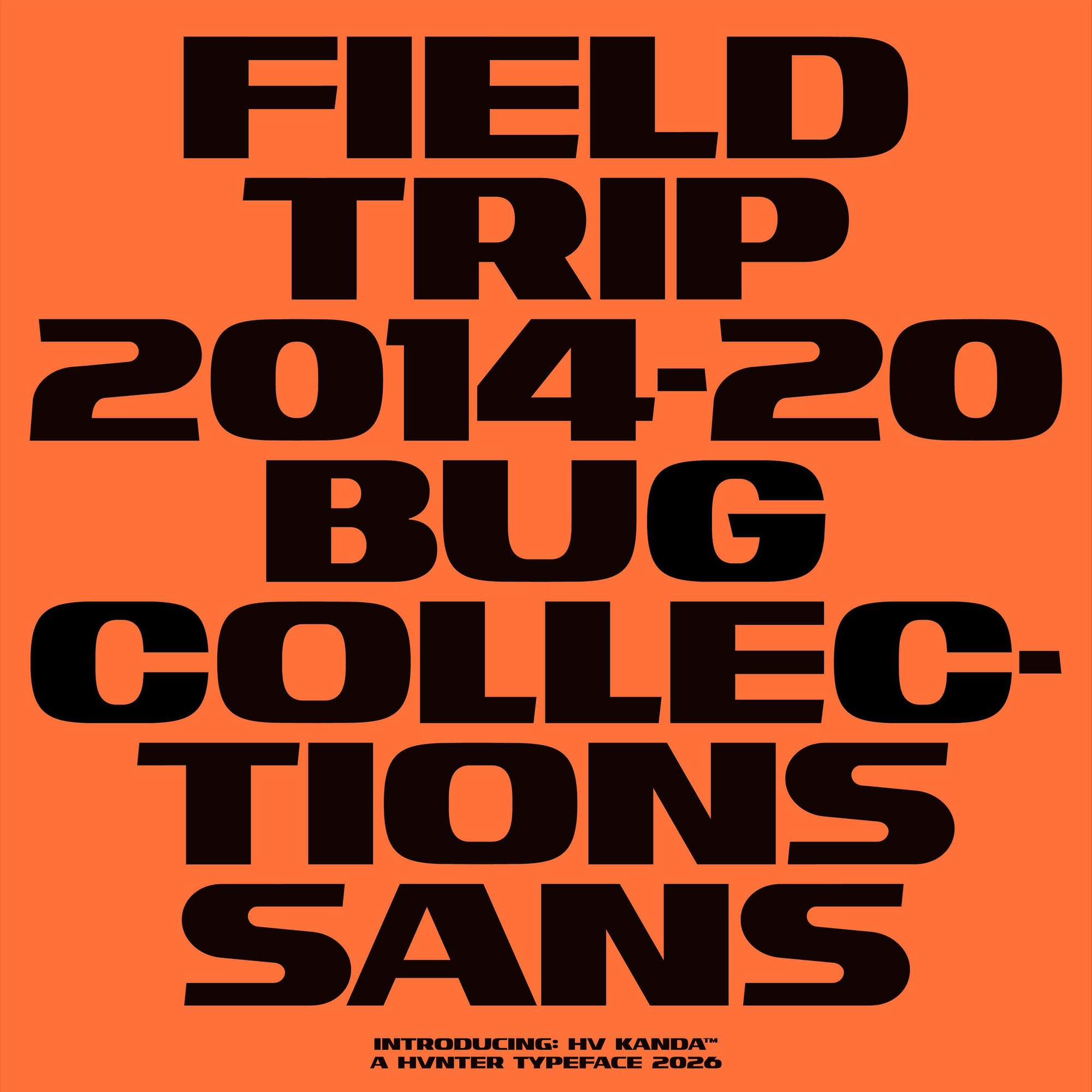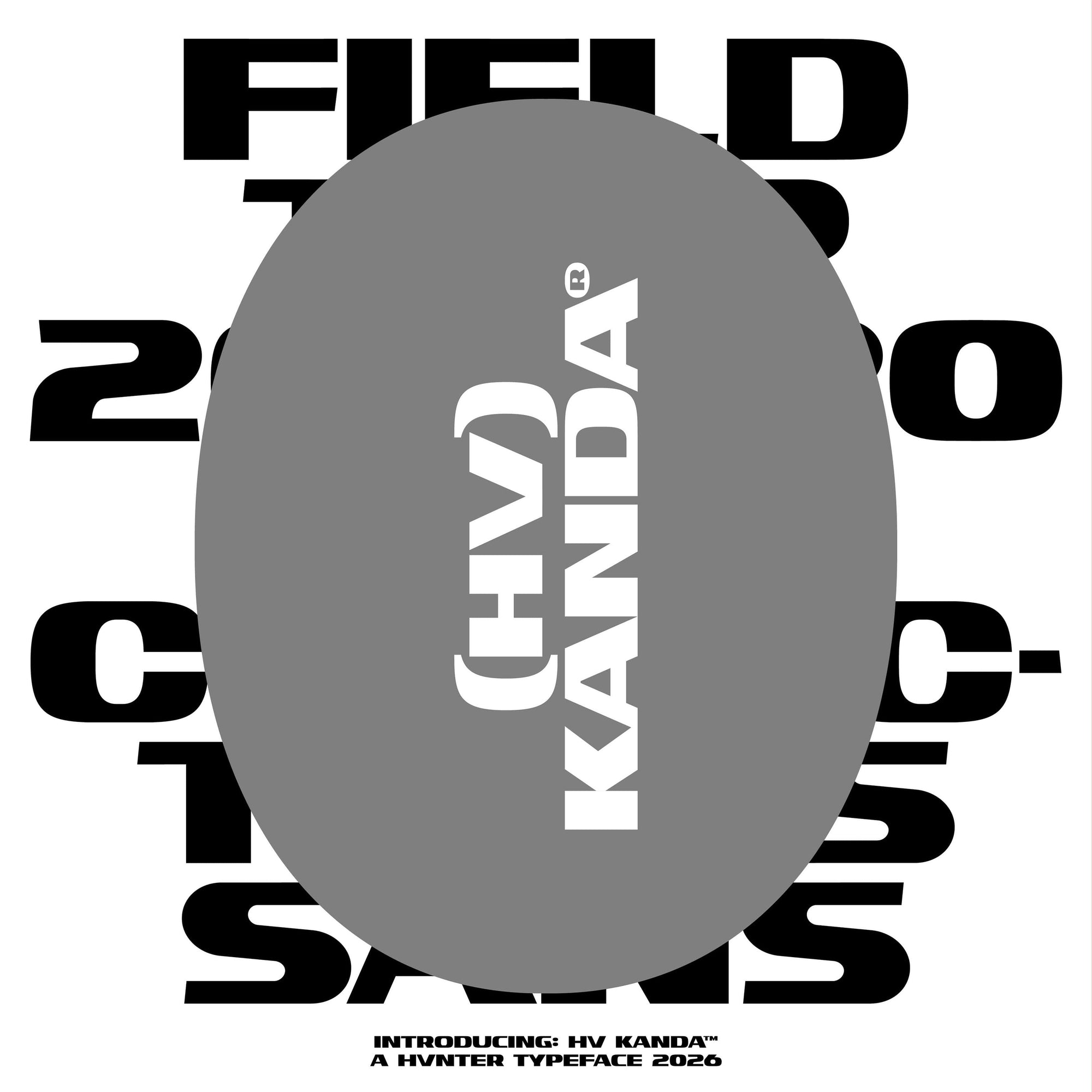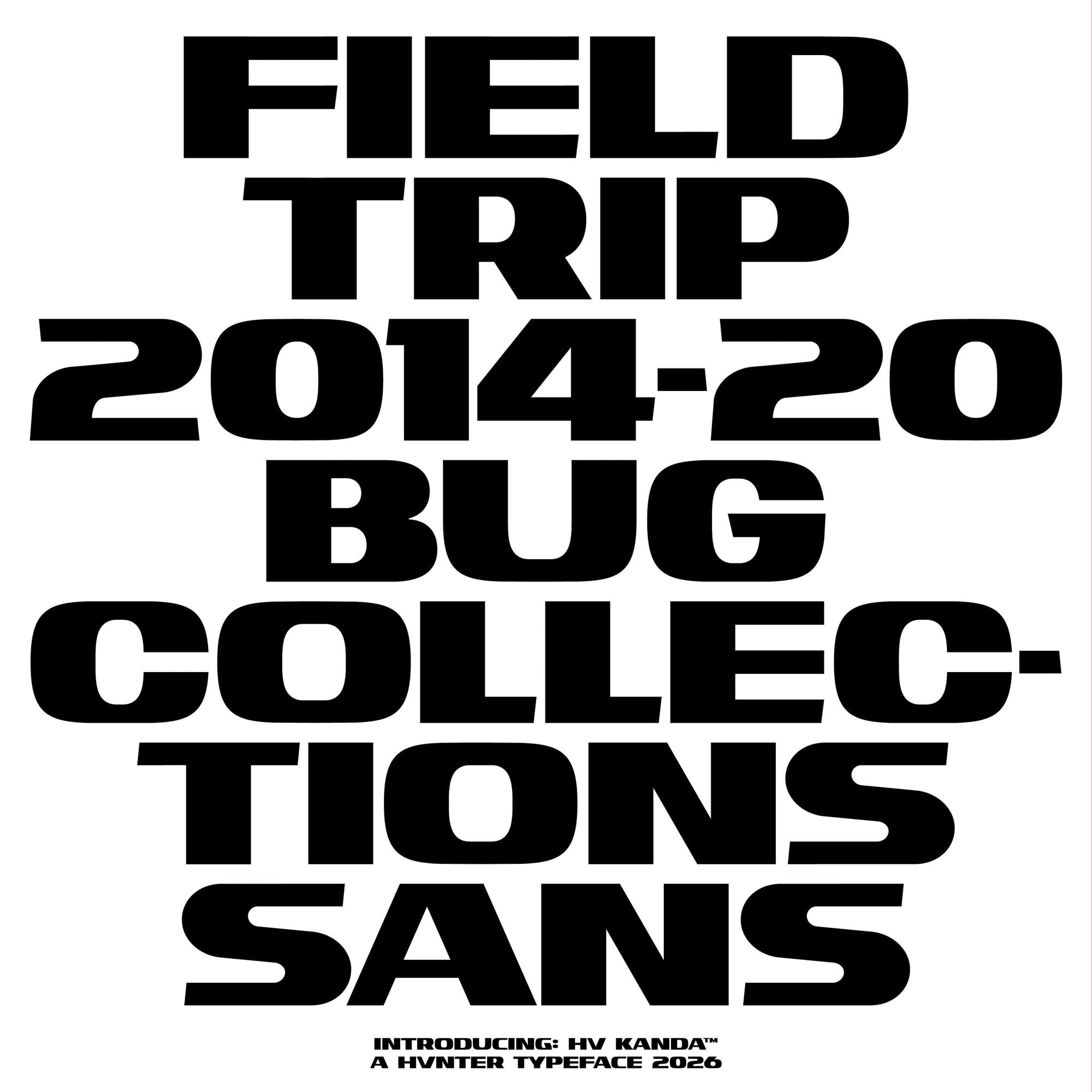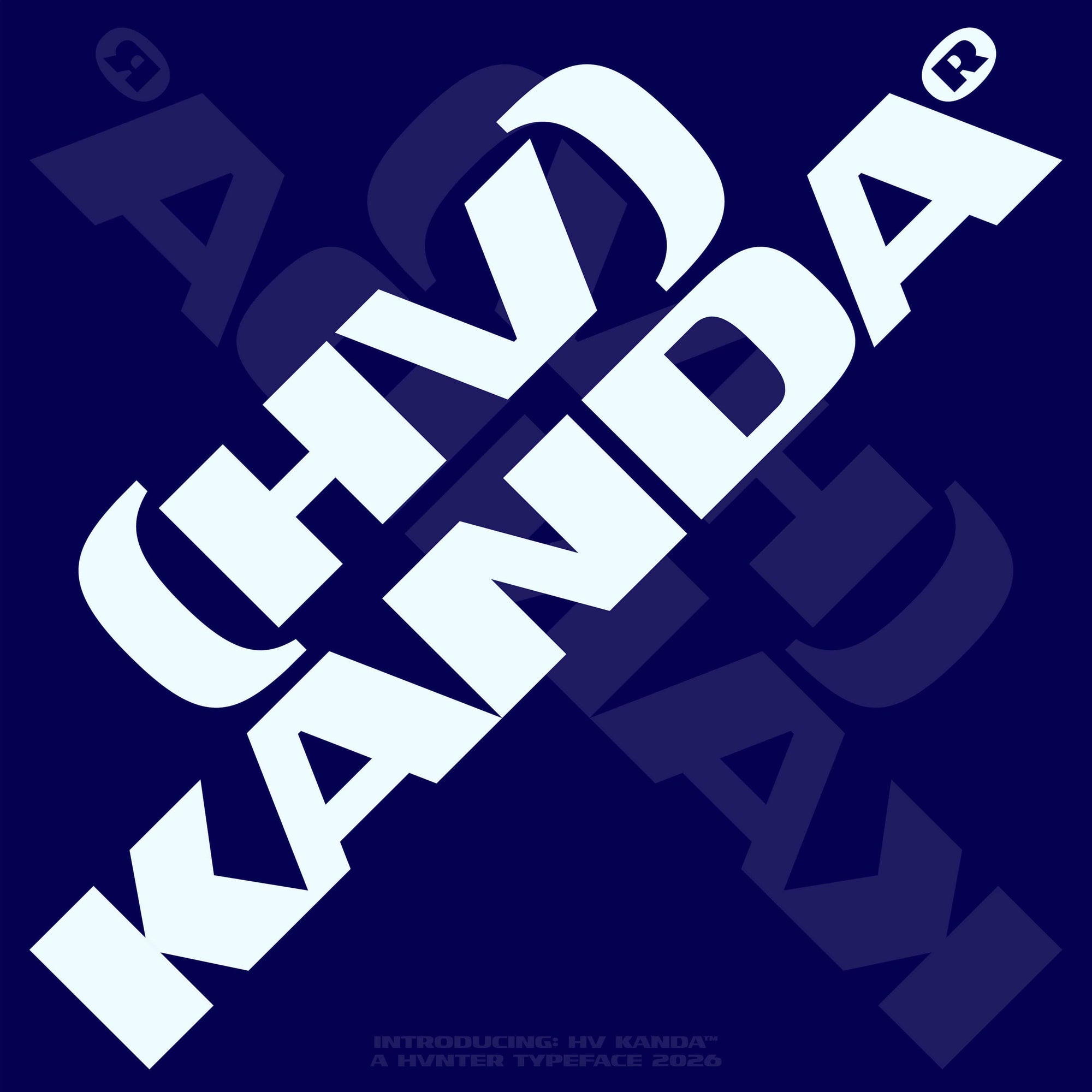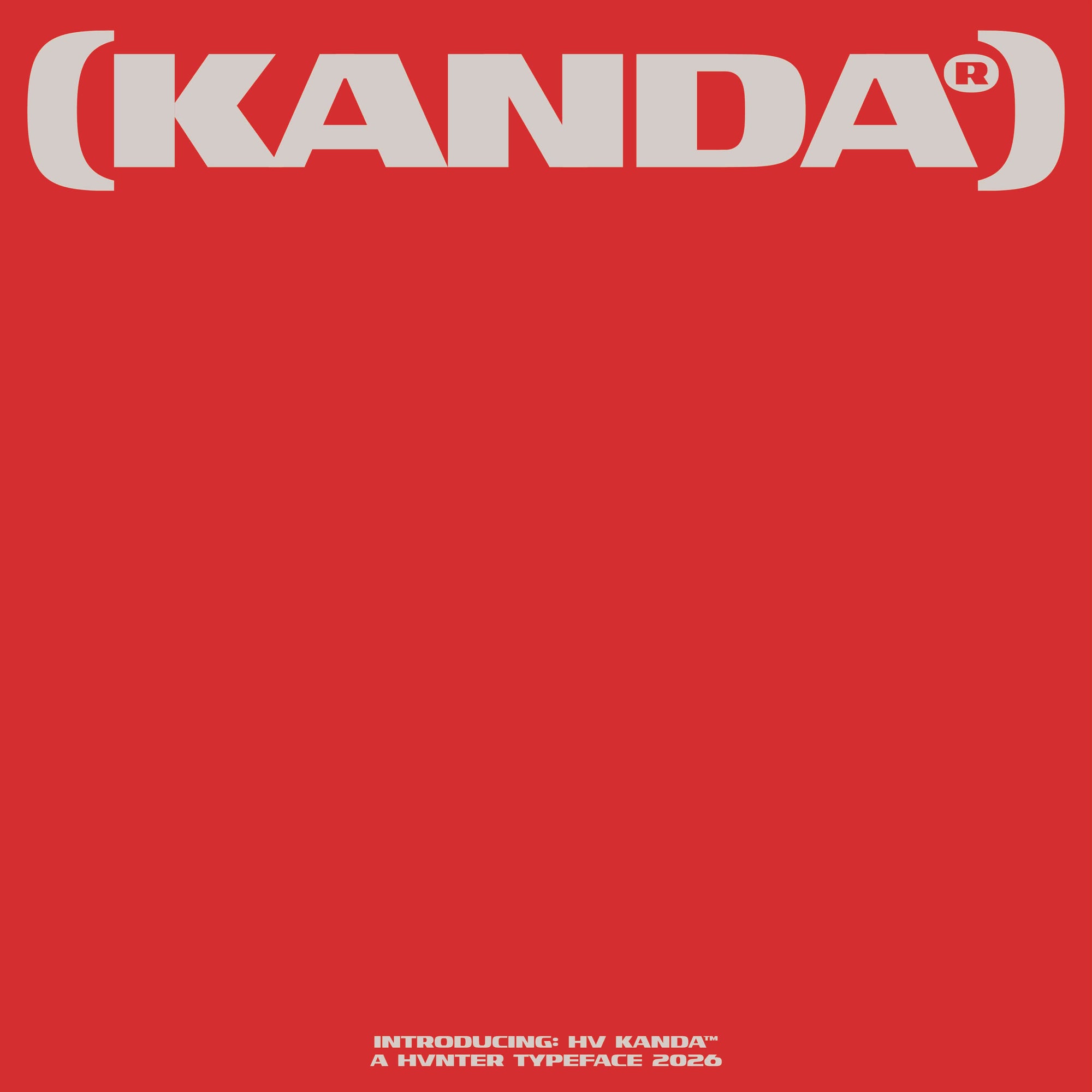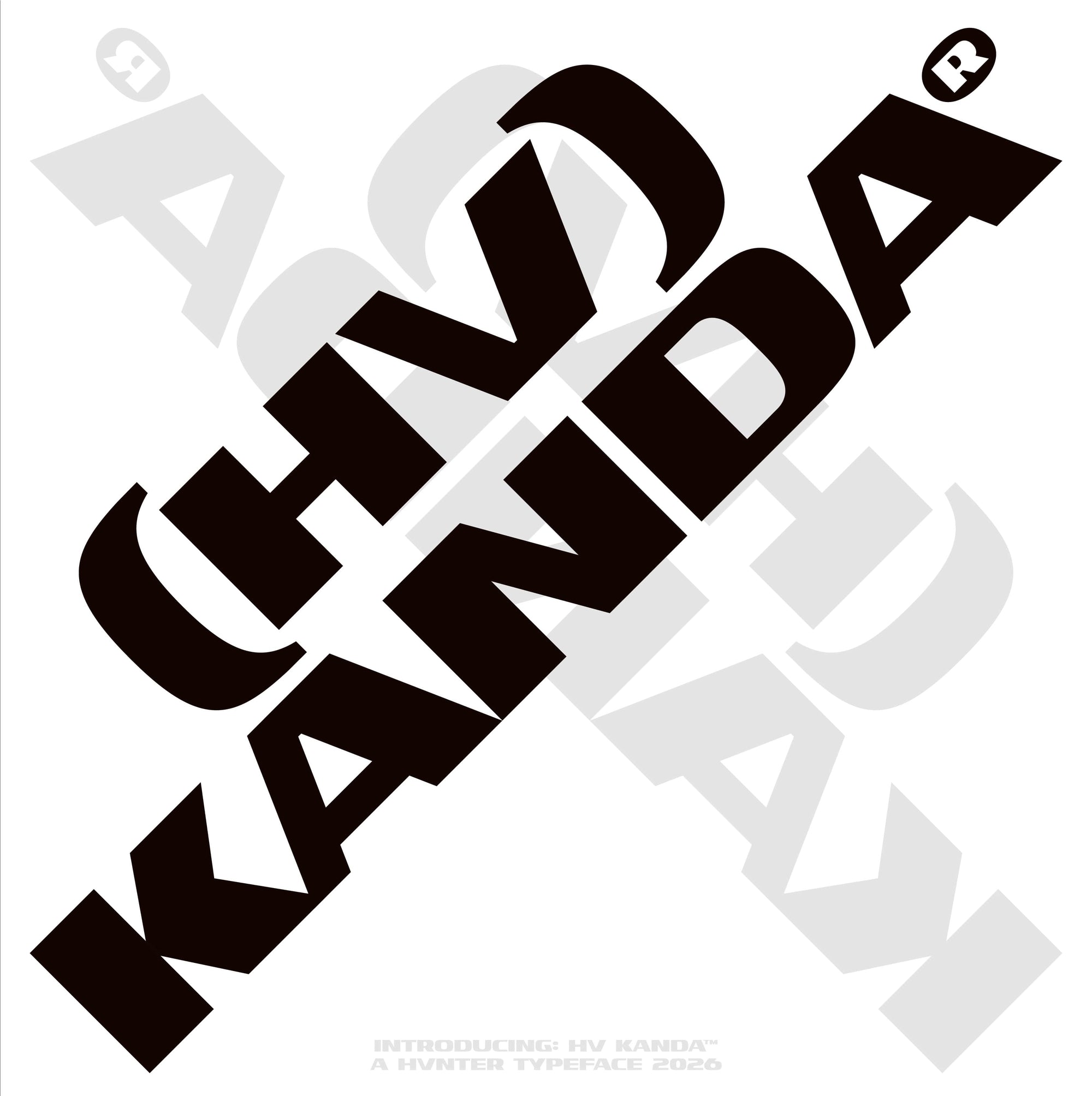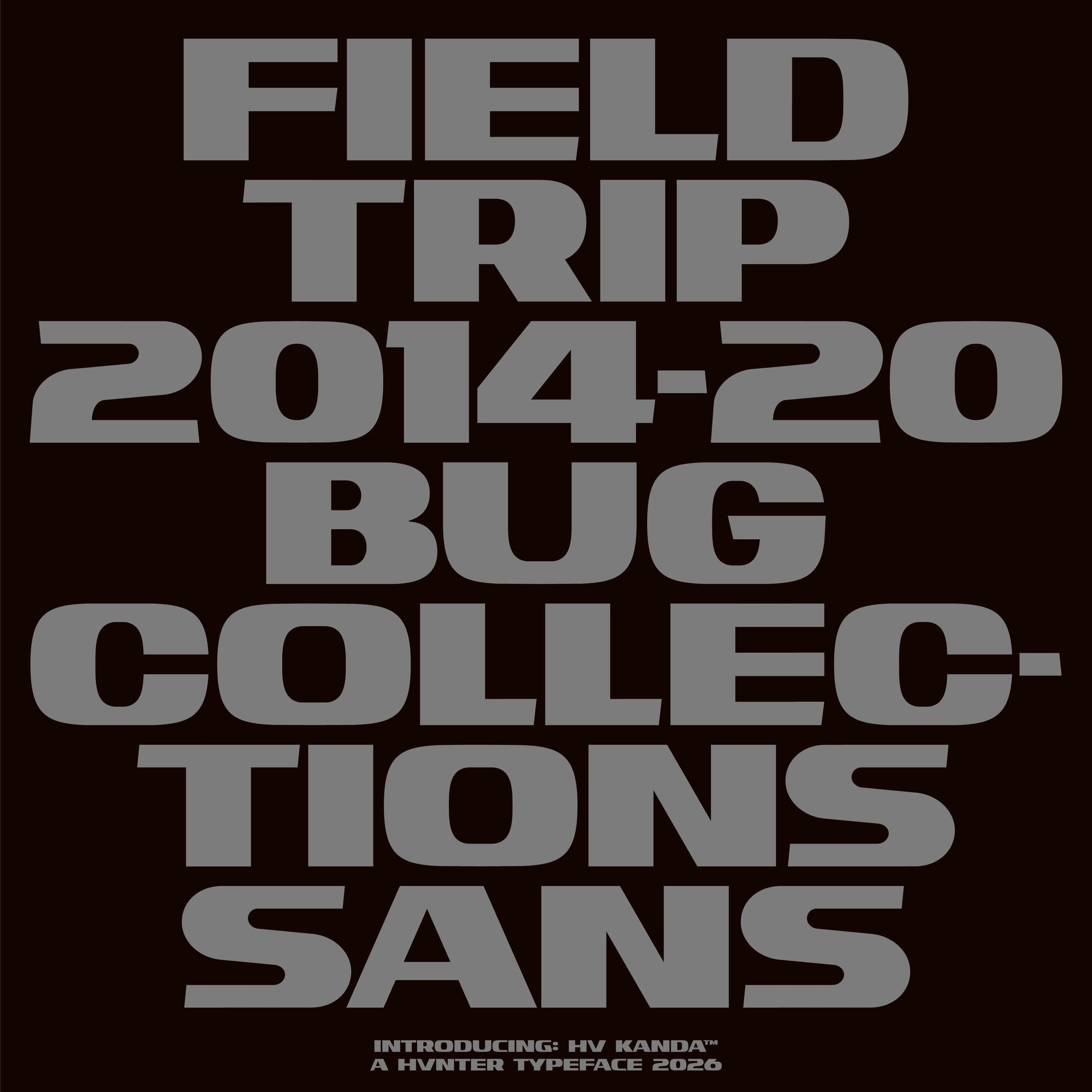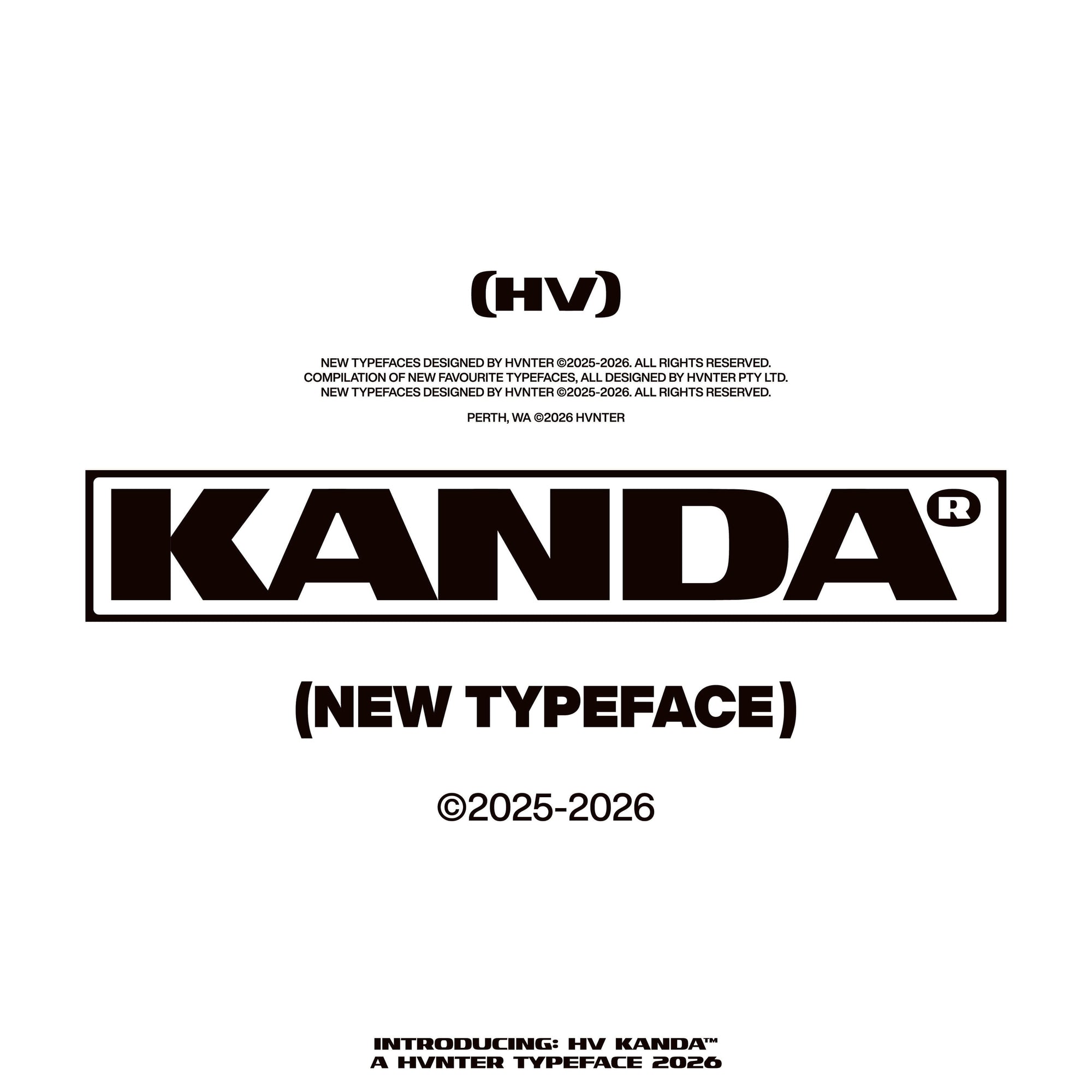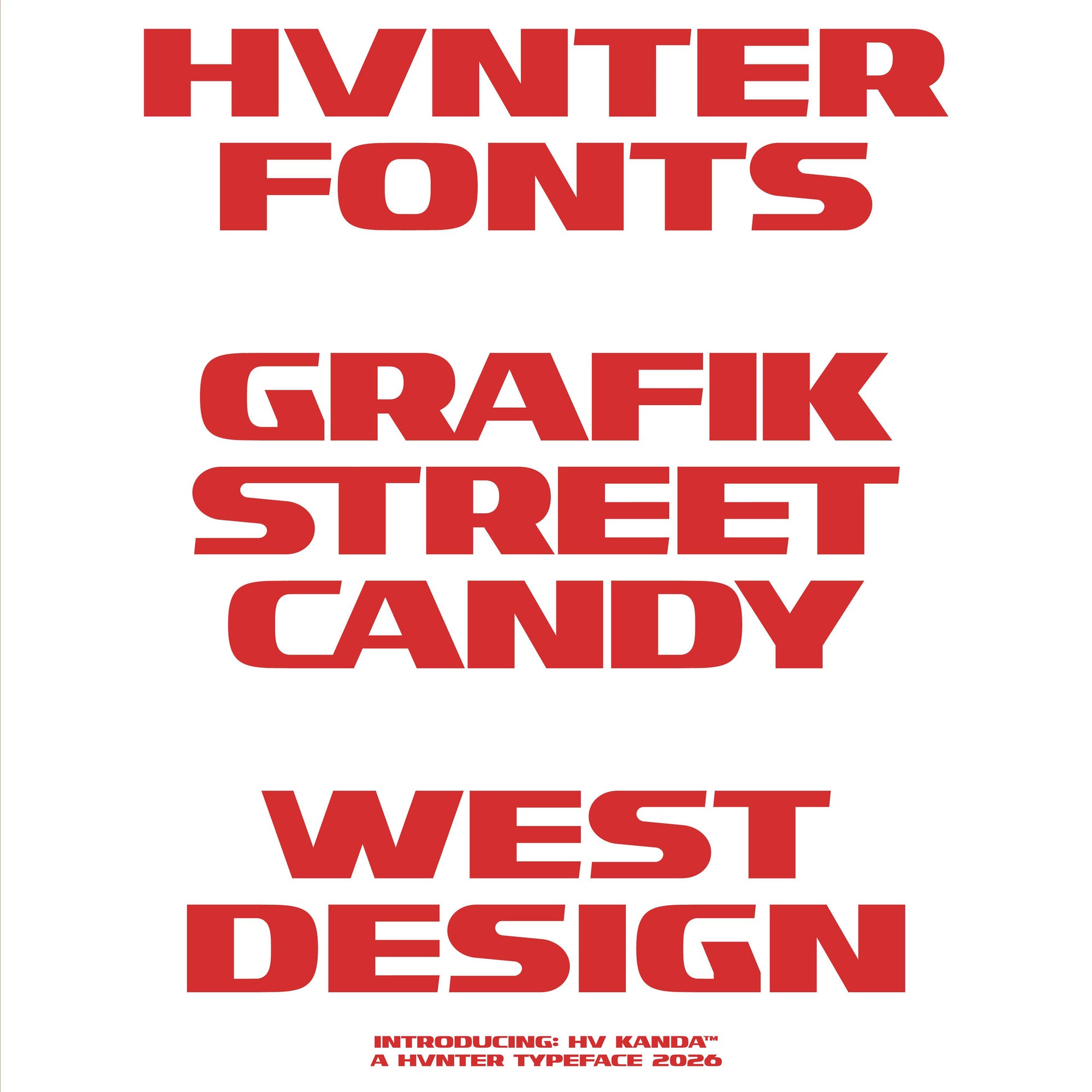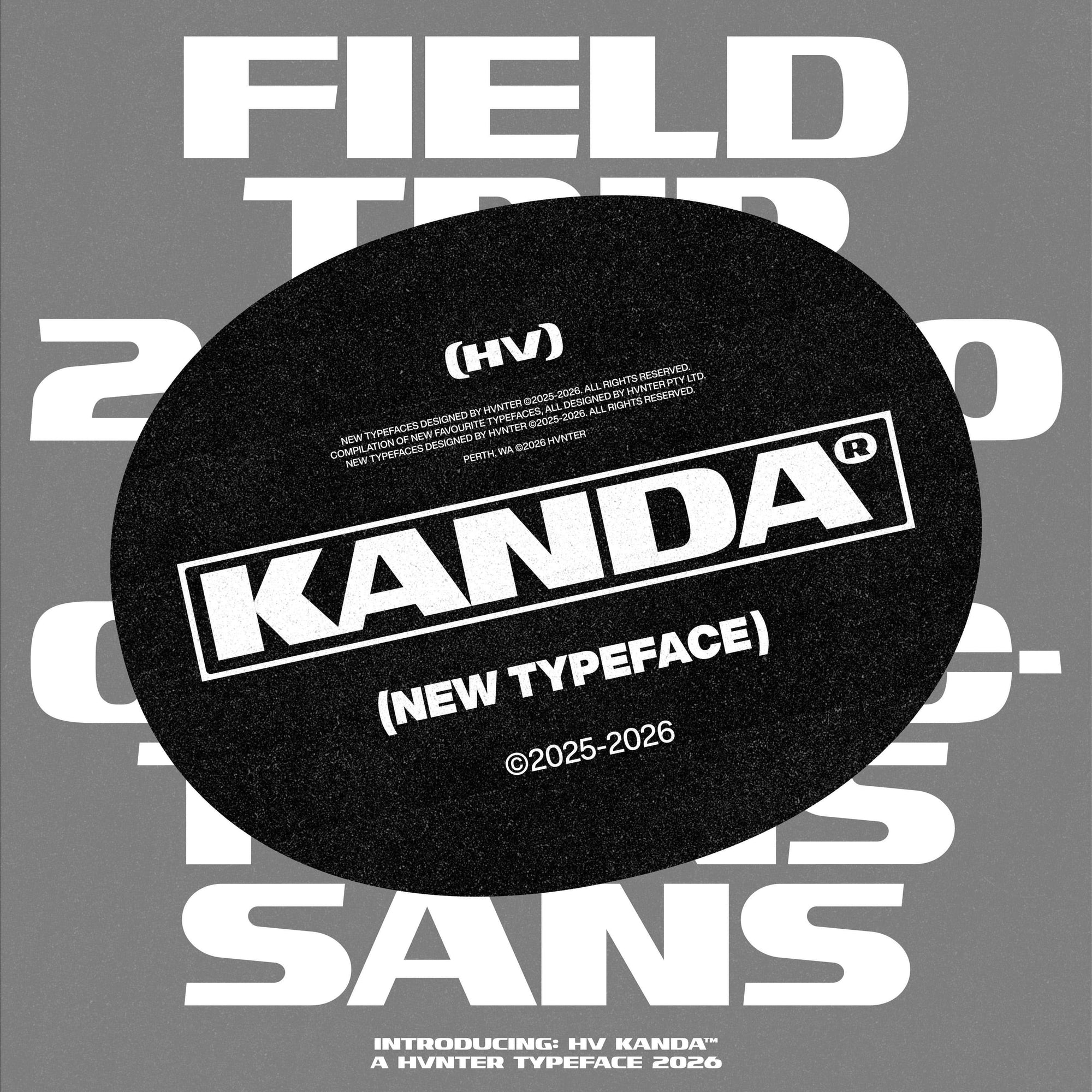
HV Kanda Typeface
HV Kanda is a bold sans serif typeface built to create instant impact. With its slightly wide proportions, strong curves, and confident rhythm, it delivers a powerful visual presence. Designed for modern and expressive branding, HV Kanda brings attitude into every composition.
Its oversized structure and dynamic letterforms make it especially effective in large-scale applications where typography needs to lead the visual identity. From fashion branding and album covers to posters, packaging, social media graphics, and contemporary logos, HV Kanda is designed to stand out without feeling overly aggressive. The balance between geometric precision and playful character gives the typeface a distinctive voice that feels both modern and timeless.
HV Kanda includes uppercase letters, numerals, punctuation, symbols, and a selection of alternate characters that allow designers to create more unique and expressive layouts. Whether used for bold headlines or statement-driven branding systems, the typeface adapts effortlessly across digital and print environments.